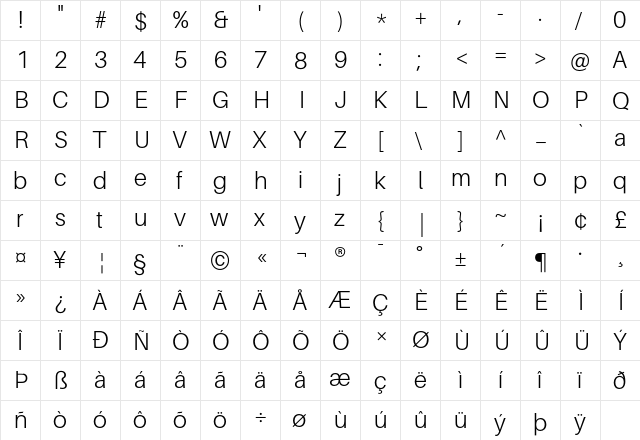
Aileron Light Regular
| Foundry | Sora Sagano |
| Designer | Sora Sagano |
Design Context for Aileron Light Typeface
Aileron Light is a composed and adaptable typeface that performs quietly and consistently across a wide range of design contexts. Its slender proportions lend an understated elegance to any composition.